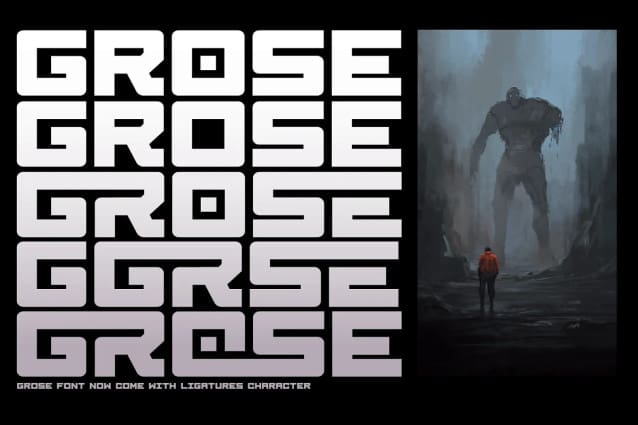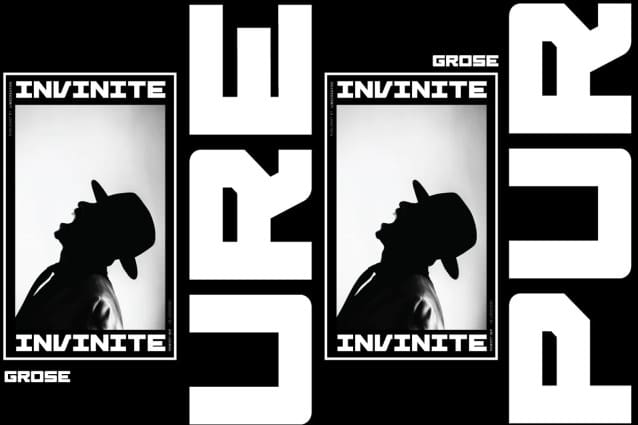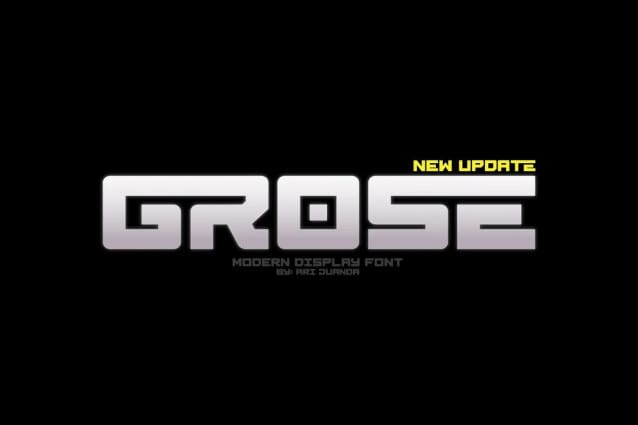
Grose Font
Grose Font is a modern san serif font that gives a clean, minimalist and futuristic impression,and Come with ligatures collection. It’s Perfect for logo,branding,title, name card, magazin layout,poster, or large scale artwork.